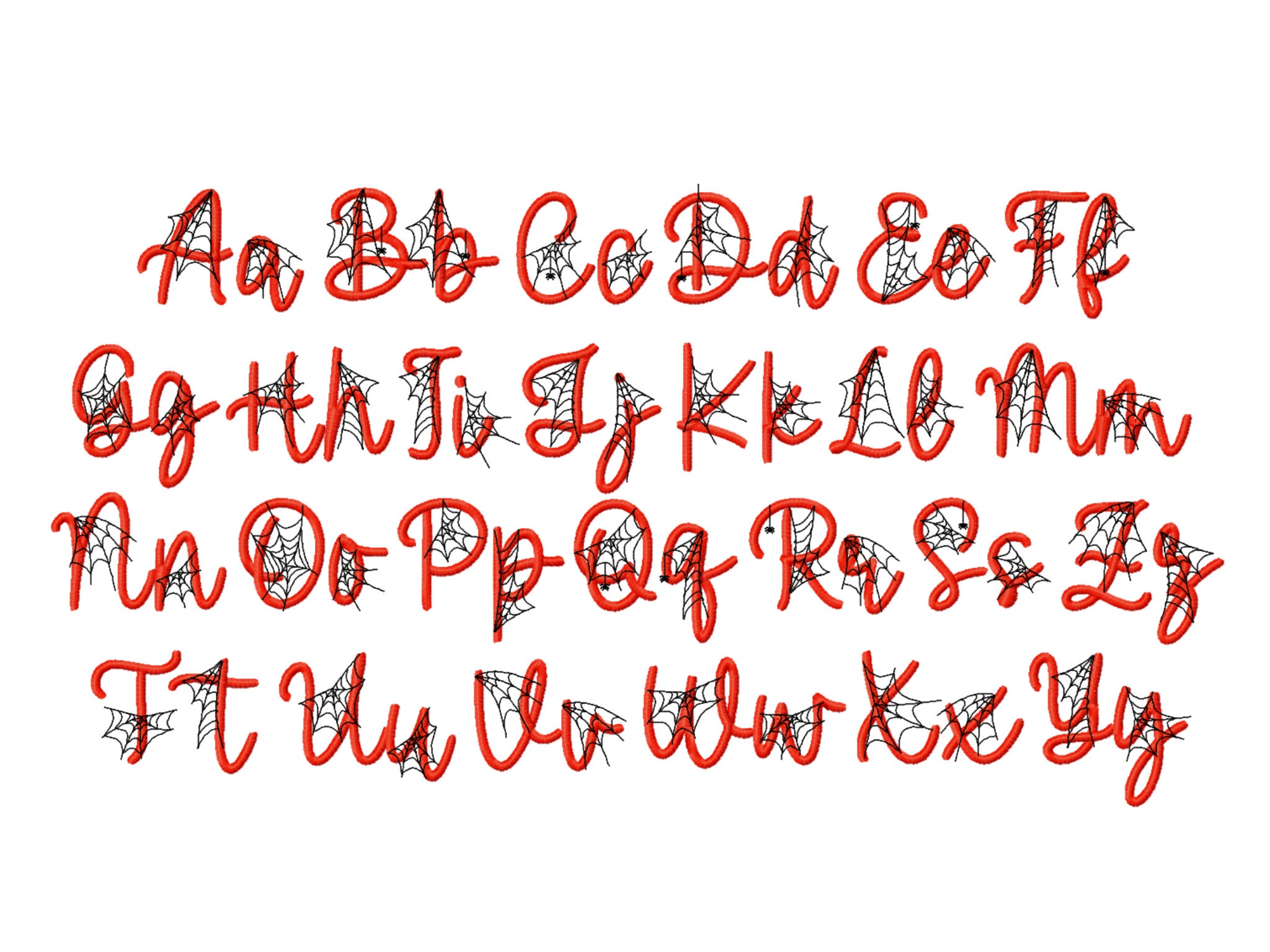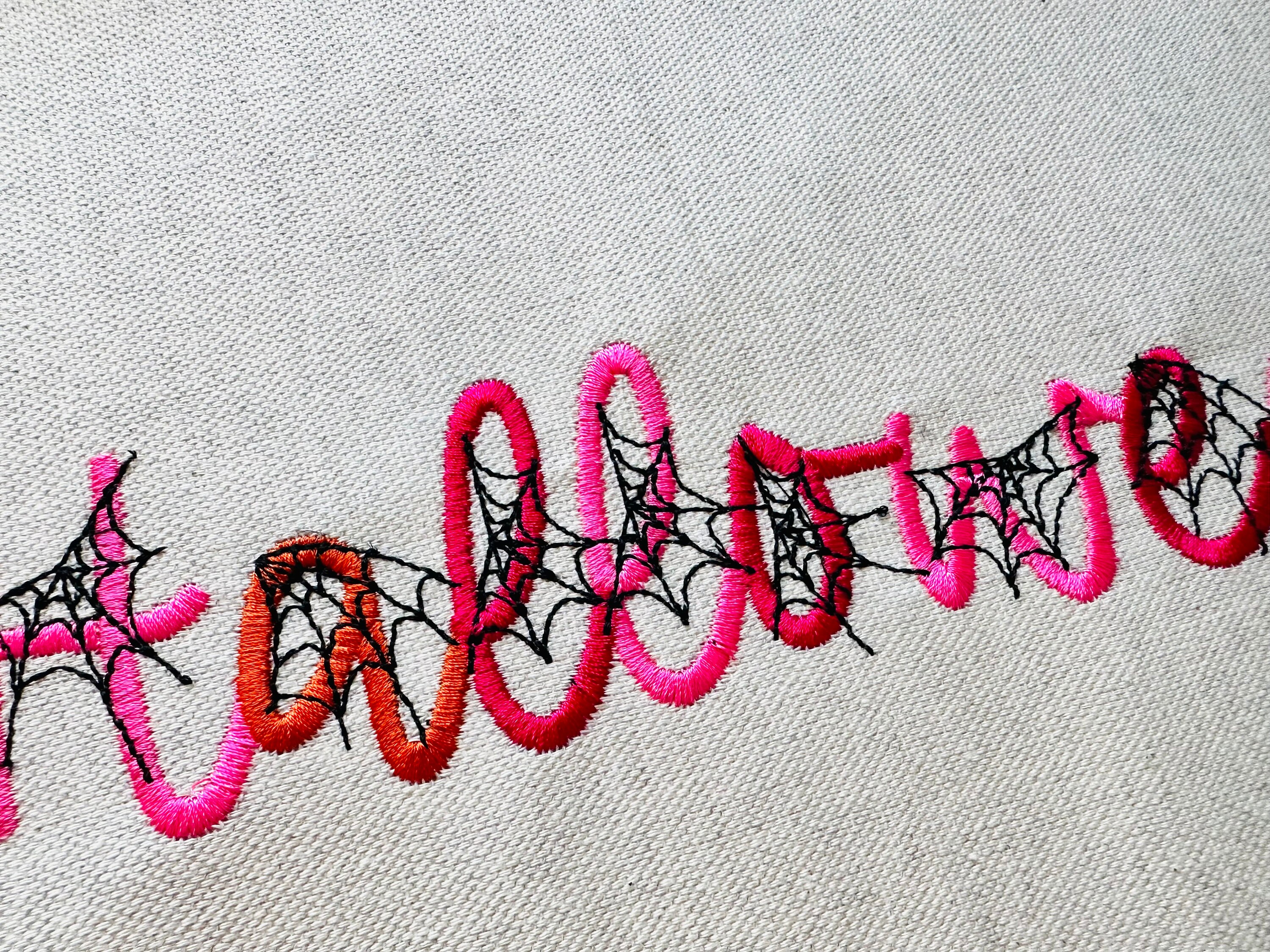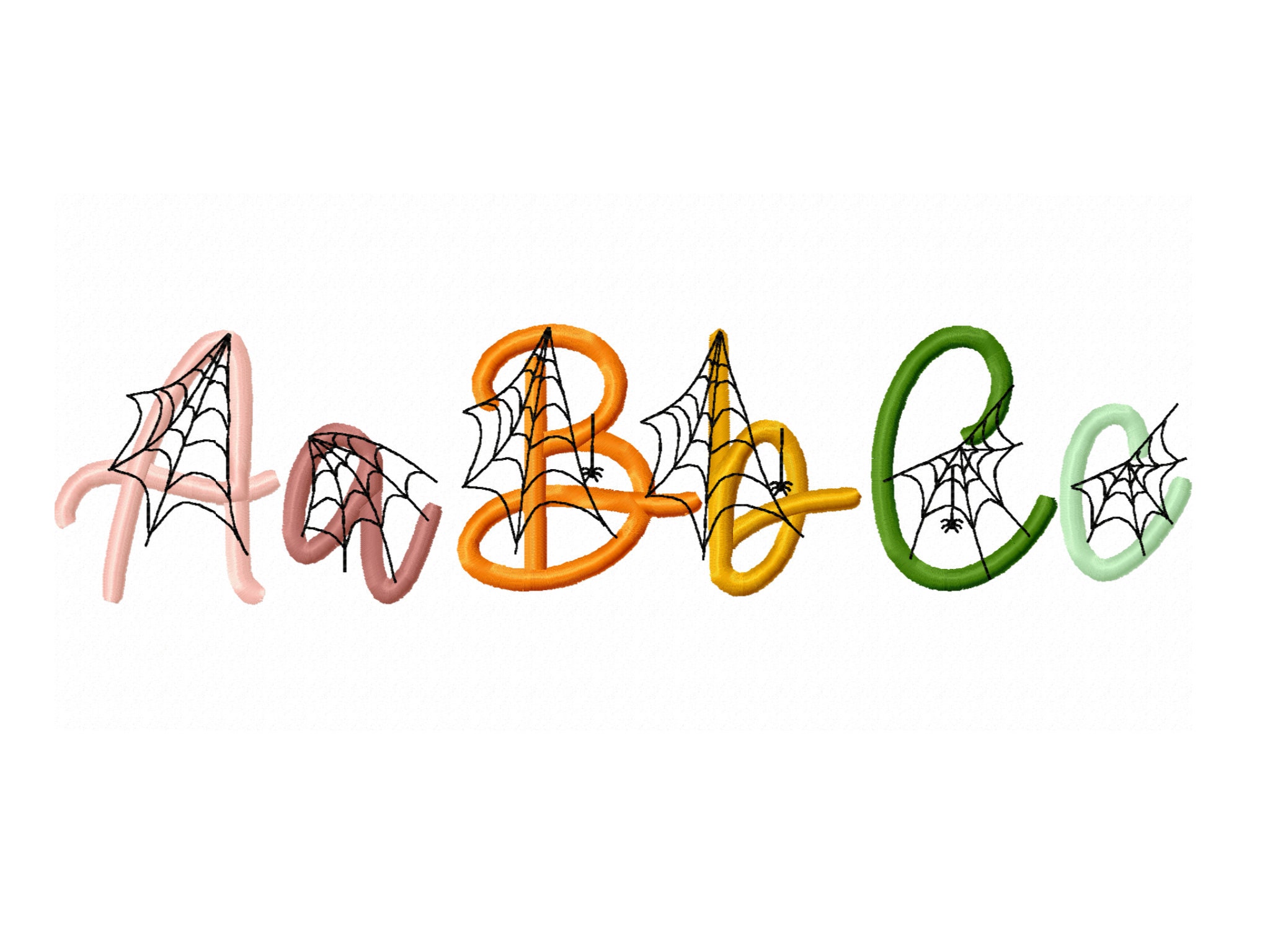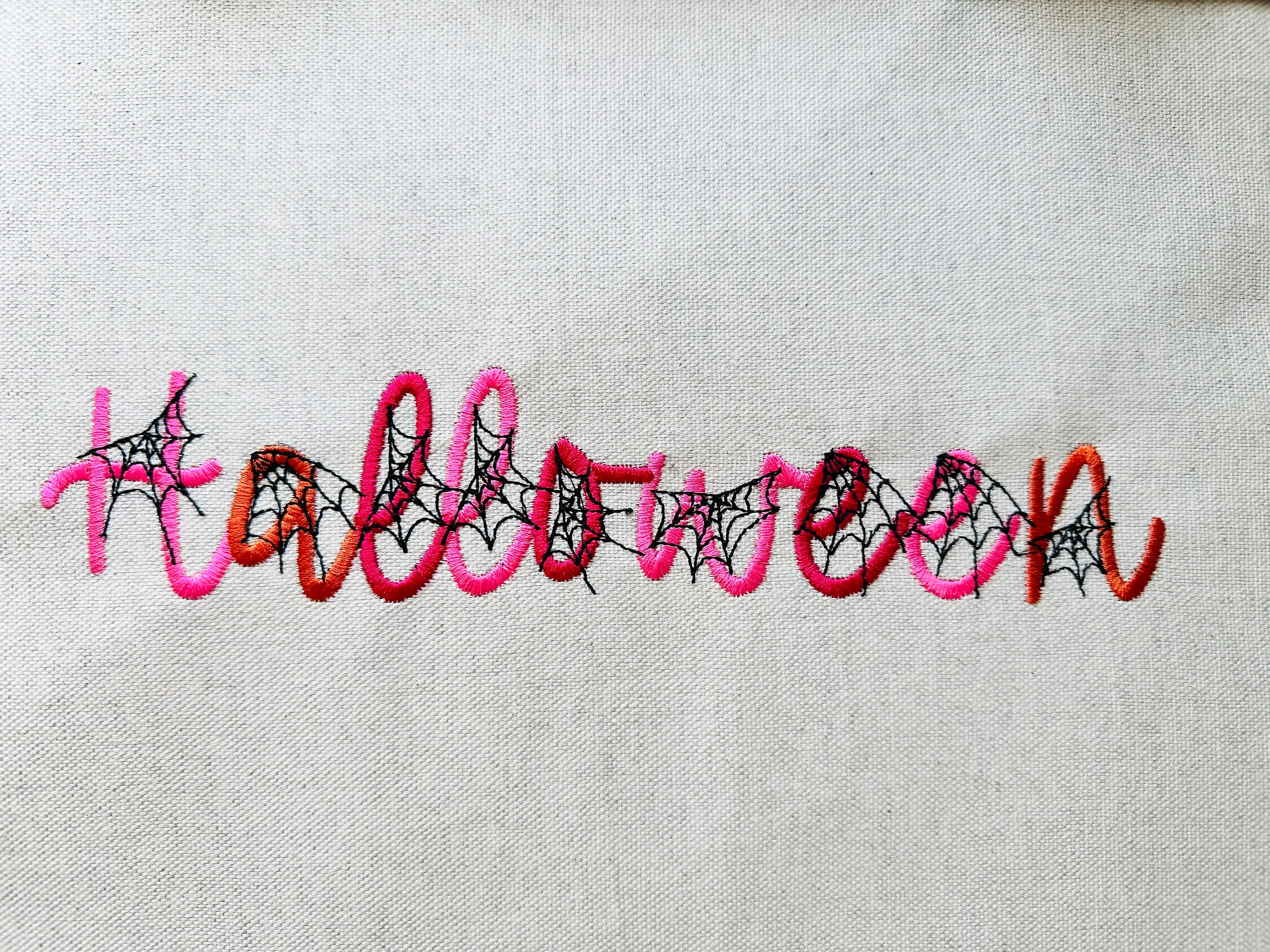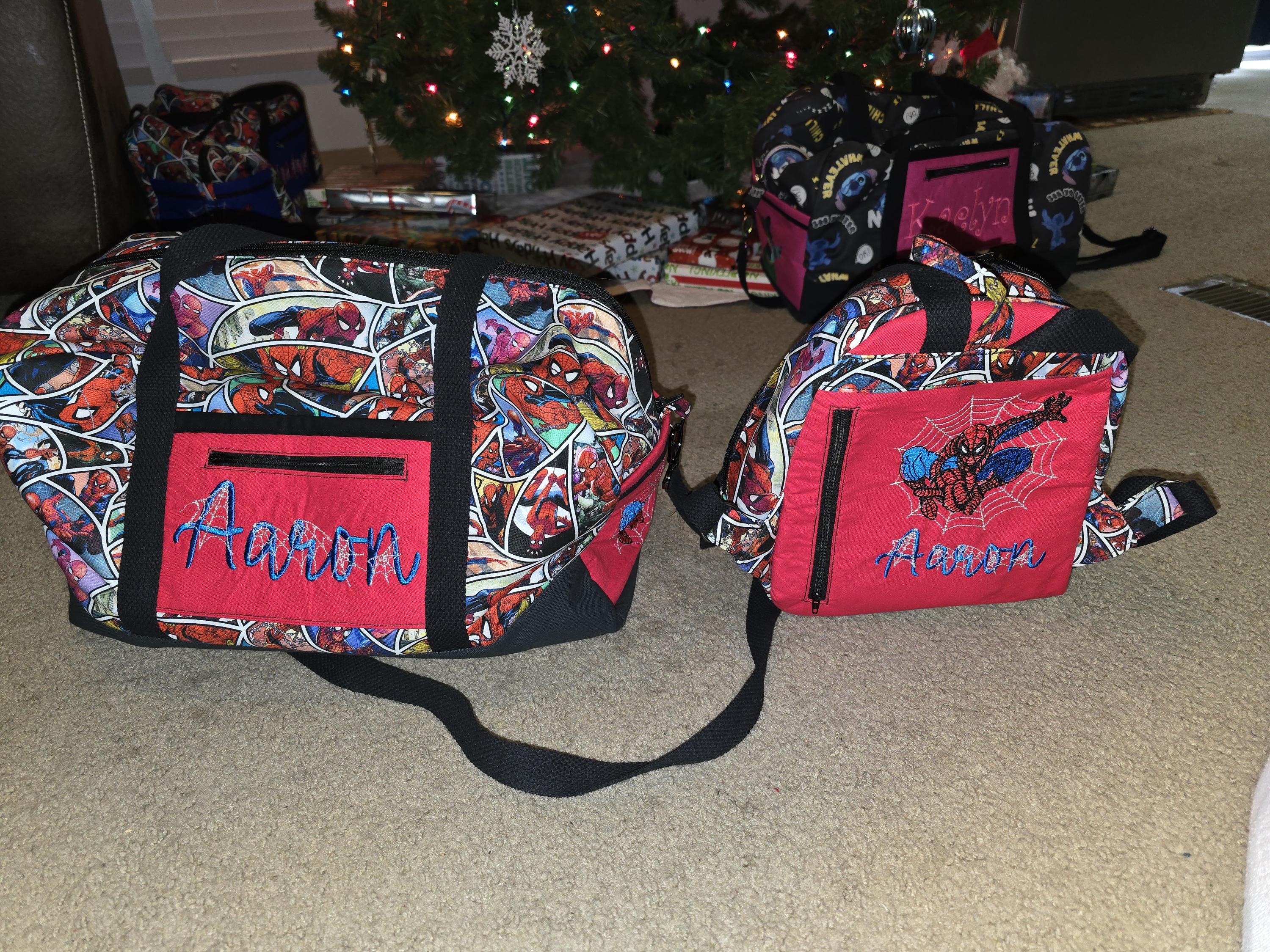
Spiderweb Font embroidery spider's web alphabet Halloween cobweb spooky scary letters with spider web machine embroidery design Boo font, BX included
Whole alphabet A-Z uppercase and lowercase letters.
This is a satin stitch font and the spider web pattern is a part of the design.